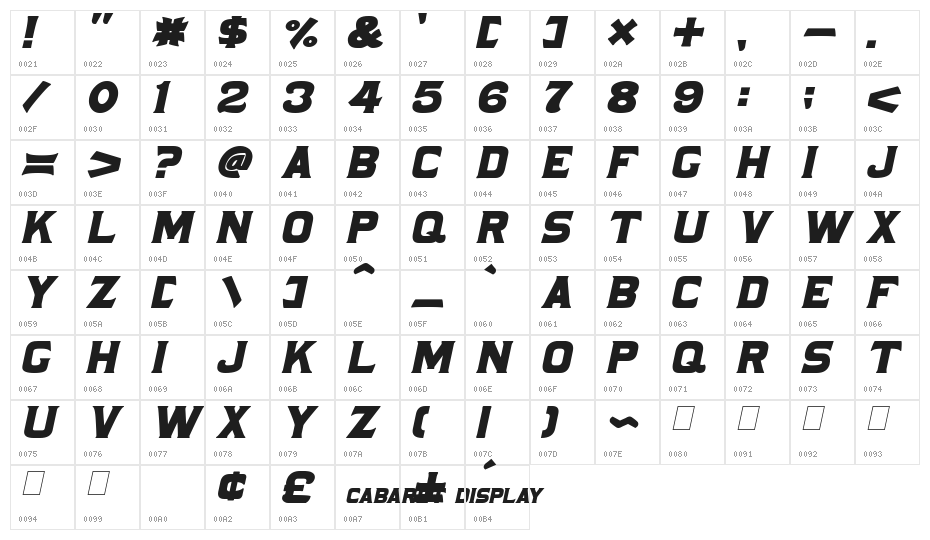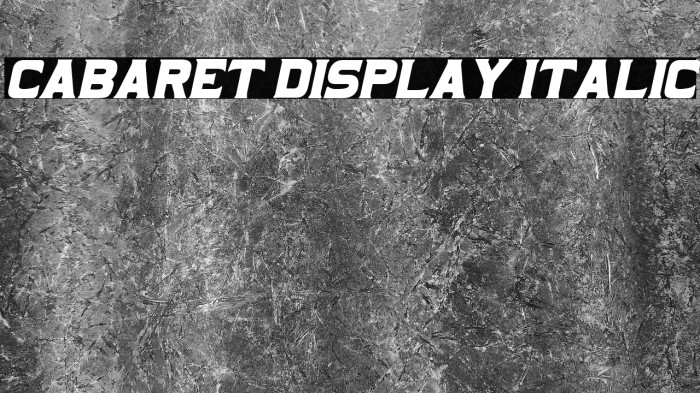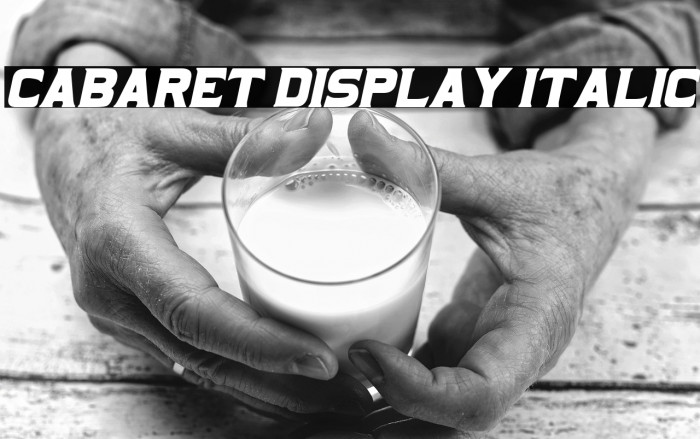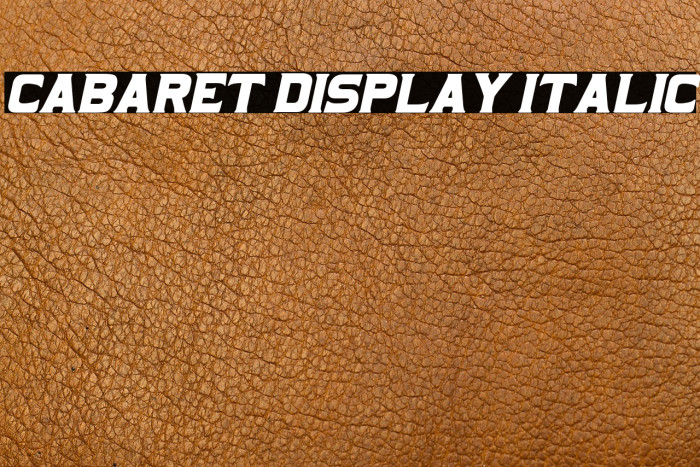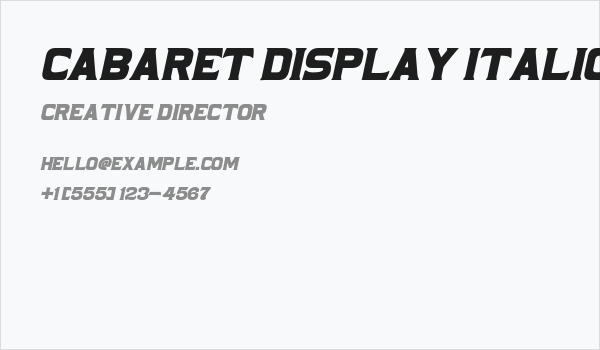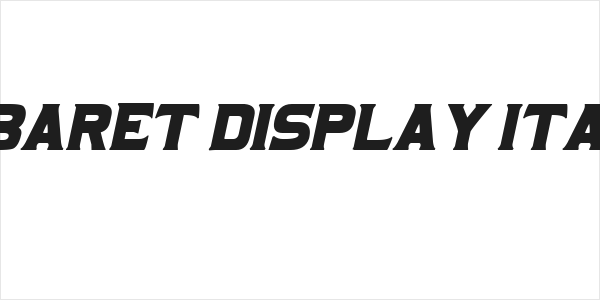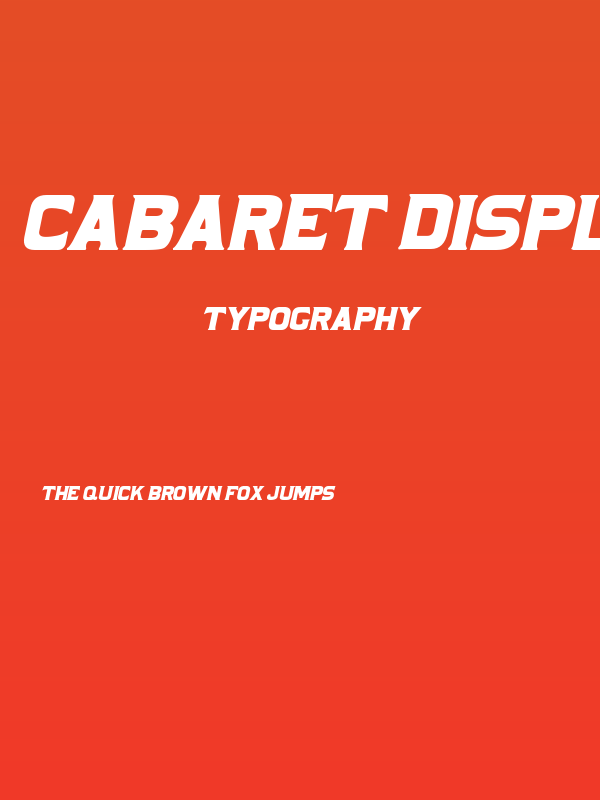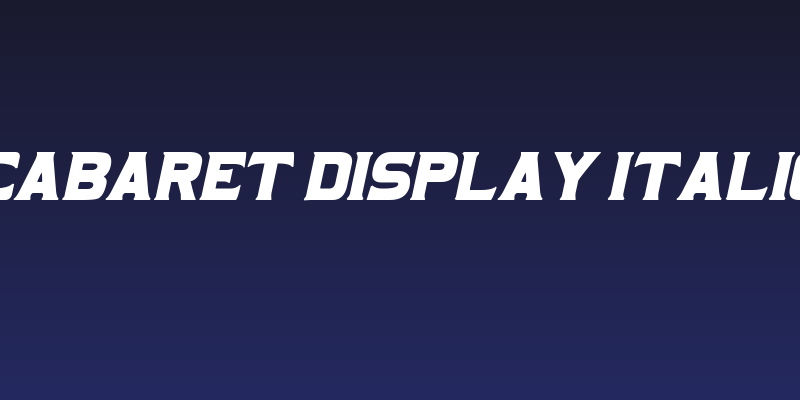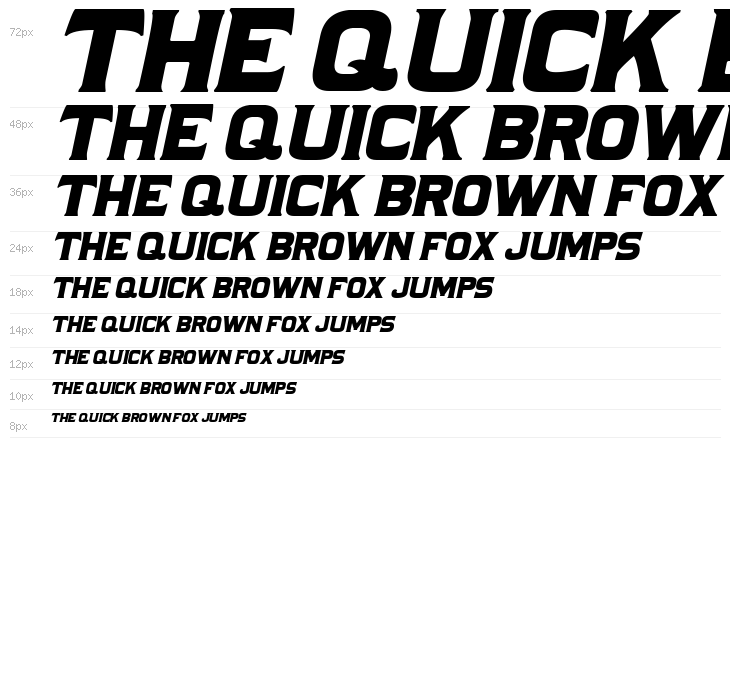
Cabaret Display Italic Font
Cabaret Display Italic Description
This font features a bold and dynamic style with a strong italic slant, giving it a sense of movement and energy. The characters are thick and robust, with a slight curvature that adds a touch of elegance. The uppercase and lowercase letters maintain a consistent weight, ensuring readability while providing a distinctive look. The numbers are equally bold, matching the style of the letters. Special characters are designed with the same boldness and flair, making them stand out. Overall, this font is ideal for projects that require a strong visual impact.
| Proposed Projects | Perfect for posters, headlines, branding, and advertising where a strong visual impact is needed. |